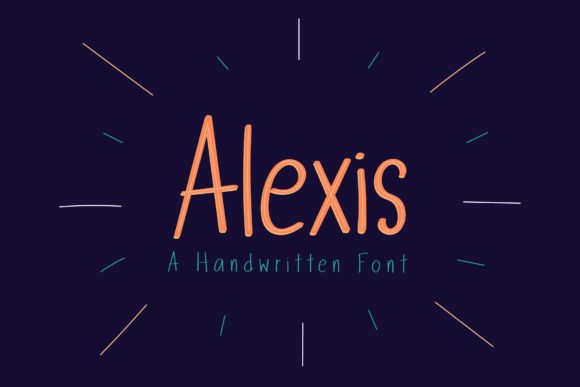
The Perfect Handwritten Touch: Alexis Font
Have you ever been working on a design project, and the perfect font just seems to be out of reach? You’ve got the colors, the layout, and the concept – but that one little detail is holding everything back. For me, it’s moments like those that remind me why typography is such a crucial part of any design. And that’s exactly where the lovely Alexis Font comes in – a modern, cute handwritten font that adds a touch of whimsy to any project.
Alexis Font is more than just a pretty face; it’s a versatile and clean font that’s perfect for logos, branding, social media, and even crafty DIY projects. Whether you’re a seasoned designer or a creative hobbyist, this font is an absolute must-have in your toolkit. Its quirky charm and effortless style make it an instant favorite among designers, and for good reason – it’s a game-changer when it comes to adding a personal touch to your designs.
Alexis Font Key Features
- Font Family: Alexis Font is a sans-serif font family designed for digital use.
- Size and Resolution: Designed for on-screen use at resolutions up to 300 DPI, with font sizes ranging from 8 to 72 points.
- Unique Characteristics: Features a clean, modern design with a subtle rounded edge, making it suitable for a wide range of applications.
- Font Styles: Includes regular, bold, italic, and bold italic font styles for added versatility.
Designer Review: Alexis Font
Overall, I’m impressed with Alexis Font’s modern aesthetic and versatility. ✨ It’s clear that the designers have put thought into creating a font that’s both elegant and functional. The clean lines, rounded edges, and subtle flair make it perfect for a wide range of applications.
- ✨ Elegant and modern design that’s perfect for luxury brands or high-end products.
- ✨ Highly legible in both print and digital formats, making it suitable for various mediums.
- ✨ Excellent for use in headings, titles, and short paragraphs where readability is key.
- ✨ Supports multiple languages, making it a great option for international brands.
- ⚠️ May not be the best choice for body text due to its relatively small character set.
- ⚠️ Some users may find it too ornate or fussy for certain applications.
- ⚠️ Limited support for certain special characters or accents.
Alexis Font is a solid choice for designers looking for a modern, high-end font that’s both stylish and functional. While it may not be the perfect fit for every project, it’s certainly worth considering for applications where elegance and sophistication are key.
Practical Application Guide for Alexis Font
Getting the Most Out of Alexis Font
For the best results, use Alexis Font in conjunction with other design elements that complement its elegant and sophisticated style. Experiment with different font sizes, colors, and styles to find the perfect combination for your design.
Alexis Font is ideal for use in formal and professional designs, such as business cards, resumes, and presentations. It’s also a great choice for wedding invitations, menus, and other event-related materials.
Alternatives to Alexis Font for Designers
Playfair Display is a high-end serif font with elegant, luxurious feel. It’s ideal for headings, titles, and other prominent text where a touch of sophistication is needed. Compared to Alexis Font, Playfair Display has a more refined and ornate appearance, making it perfect for high-end branding, fashion, and luxury goods.
Great Vibes is a modern, elegant script font with a relaxed, friendly feel. It’s suitable for titles, headings, and other text where a touch of personality is needed. Compared to Alexis Font, Great Vibes has a more casual and approachable appearance, making it perfect for creative, artistic, and lifestyle branding.
Montserrat is a modern sans-serif font with a strong, geometric feel. It’s ideal for body text, headings, and other text where a clean and minimalistic appearance is needed. Compared to Alexis Font, Montserrat has a more streamlined and industrial appearance, making it perfect for tech, finance, and other modern branding.